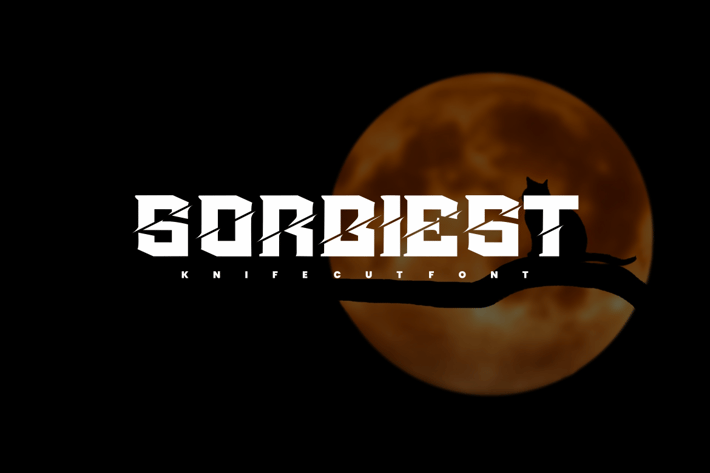
Sorbiest - Knife Cut Font
Introducing Sorbiest, an simple and modern knife cut font.
So perfect for you who needs a typeface for logo designs, magazine, social media, brochure, and many more.